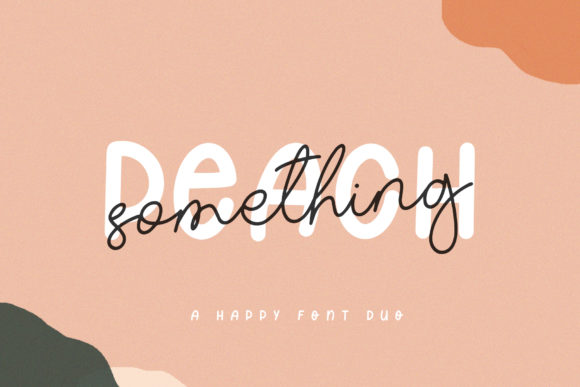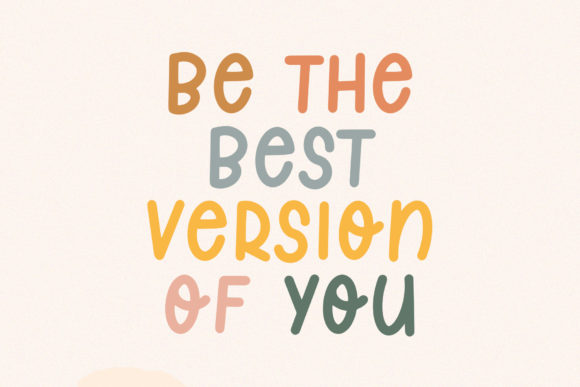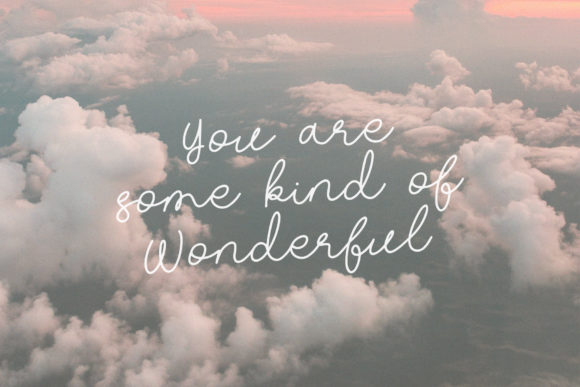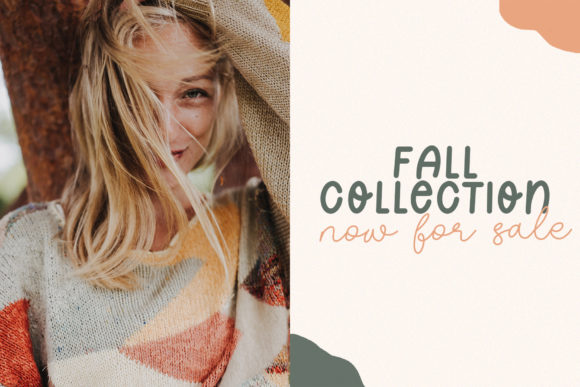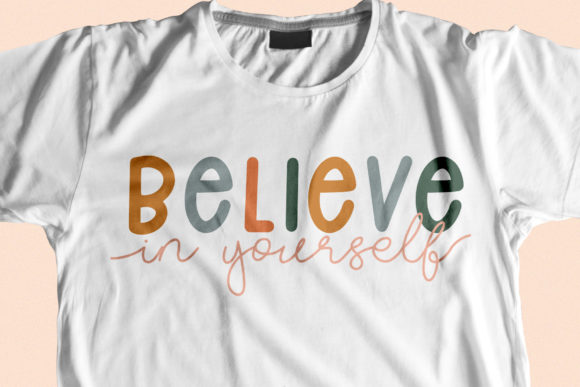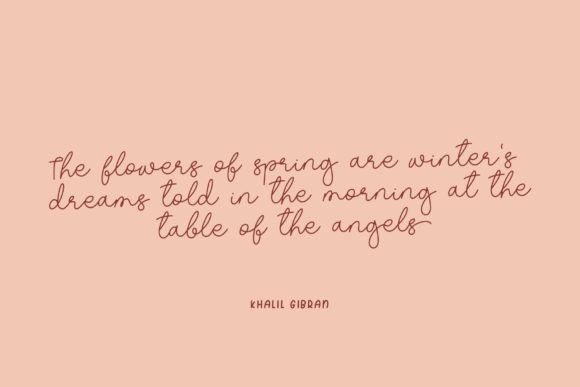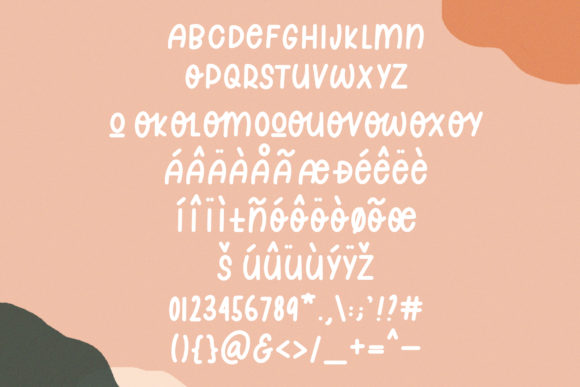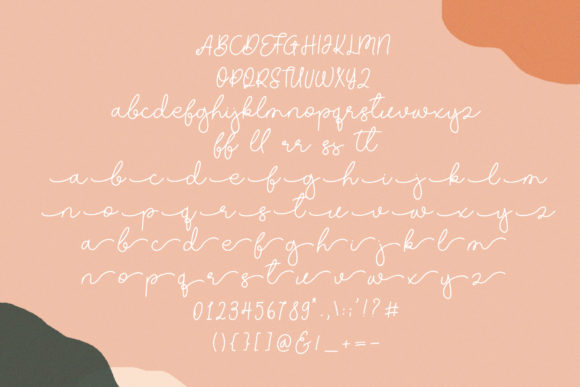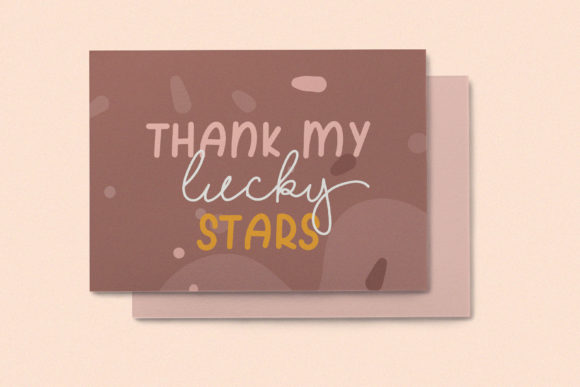
Something Peach Font
About Something Peach Font
Something Peach is a sweet and delicate duo font (sans serif and handwritten). It is the best choice for creating eye catching logos, branding and quotes. Every letter has a unique and beautiful touch, which will make your design come alive!